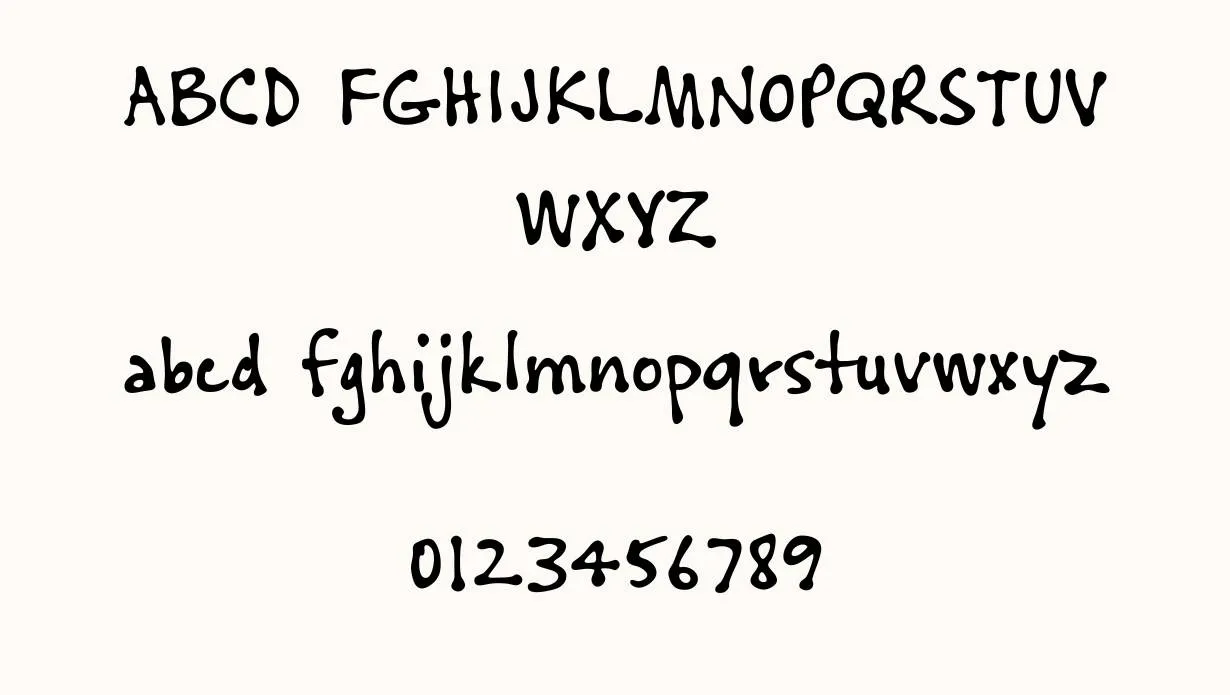
Cedarstreet is a casual and handwritten script font that adds a relaxed and personal feel to text. Its smooth strokes and informal style make it perfect for tasks such as greeting cards, social media graphics, and casual branding.
Cedarstreet serves its purpose by adding a sense of informality and friendliness to text, making it ideal for projects that aim to convey a laid-back and approachable vibe. Whether enhancing the warmth of a message or creating a relaxed brand identity, Cedarstreet brings a touch of personal connection to various design applications.